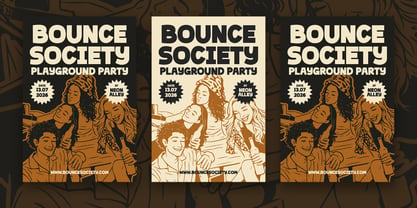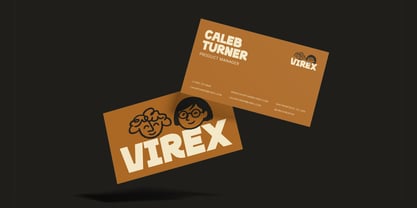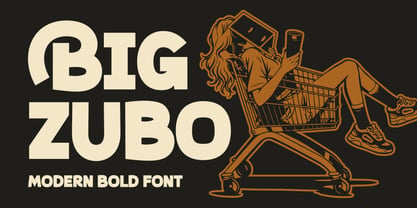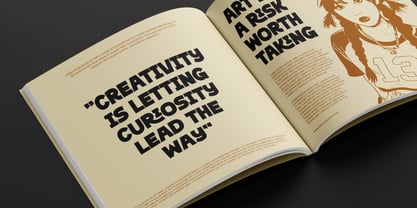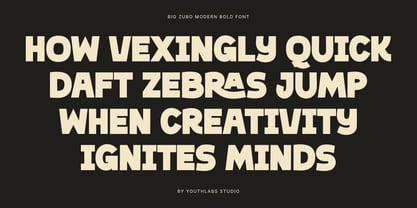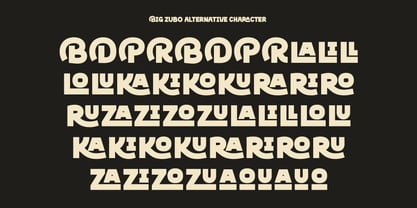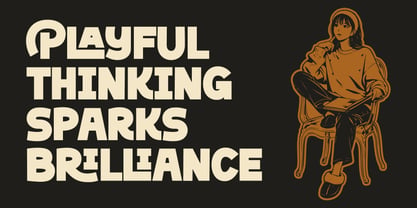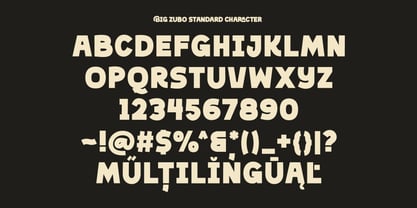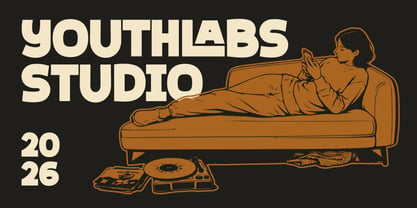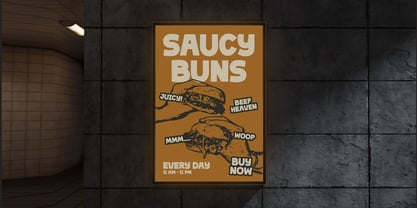
Big Zubo
by Youthlabs
The Big Zubo Font Family was designed by Fathi Al Ghazi and published by Youthlabs. Big Zubo contains 3 styles and family package options. More about this family
BIG ZUBO is a modern bold display font built to make a powerful statement. With chunky letterforms, soft curves, and confident proportions, this font delivers a playful yet professional vibe. Perfect for branding, posters, packaging, headlines, logos, apparel, and digital visuals, BIG ZUBO instantly grabs attention while staying clean and readable. Designed for creators who want bold personality without sacrificing clarity.
Designers: Fathi Al Ghazi
Foundry: Youthlabs